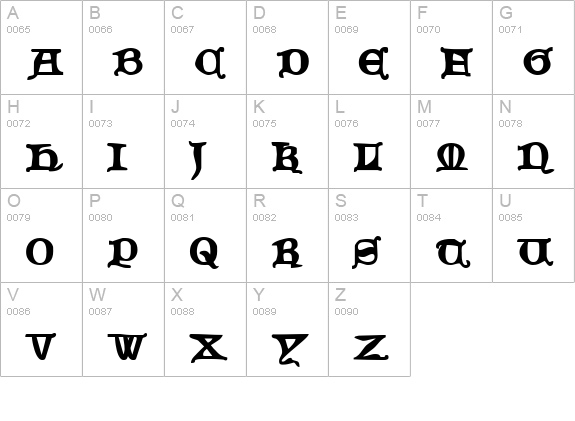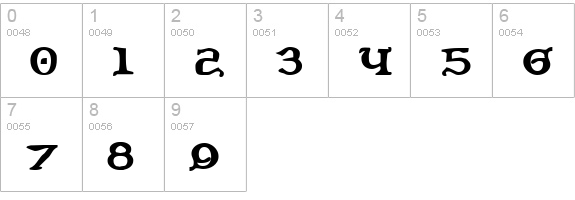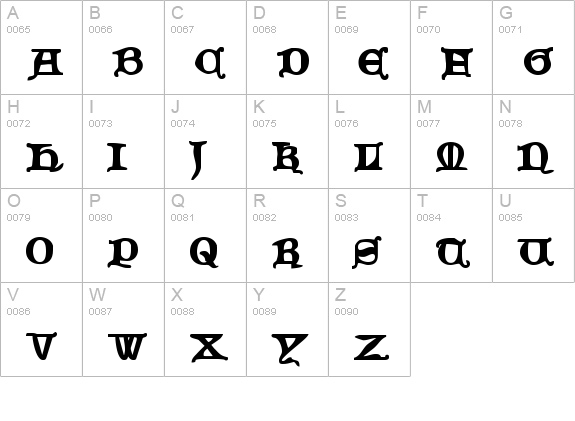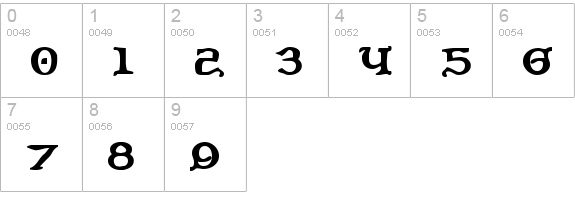
Queen & Country Bold is a strong, high-contrast variant in the Queen typeface family \xE2\x80\x94 well suited to headlines, attention-grabbing titles, and strong calls-to-action.
Queen & Country Bold font is a stunning and elegant typeface that exudes regal sophistication. With its bold and commanding presence, this font is perfect for making a statement in any design project. The sharp angles and clean lines give it a modern yet timeless feel, making it versatile for a wide range of applications. Best of all, Queen & Country Bold font is completely free to use and download at FontsMarket.com. Whether you're working on a branding project, poster design, or any other creative endeavor, this font is sure to elevate your work to the next level. Download Queen & Country Bold font today and add a touch of royalty to your designs.